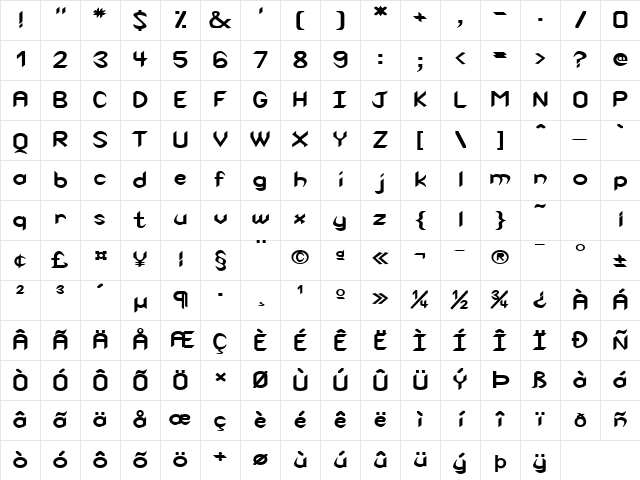
Spike-Extended Bold
Spike-Extended Family
Design Context for Spike-Extended
Spike-Extended is a composed and adaptable typeface that performs quietly and consistently across a wide range of design contexts. Its bold stroke weight gives it real presence on the page.